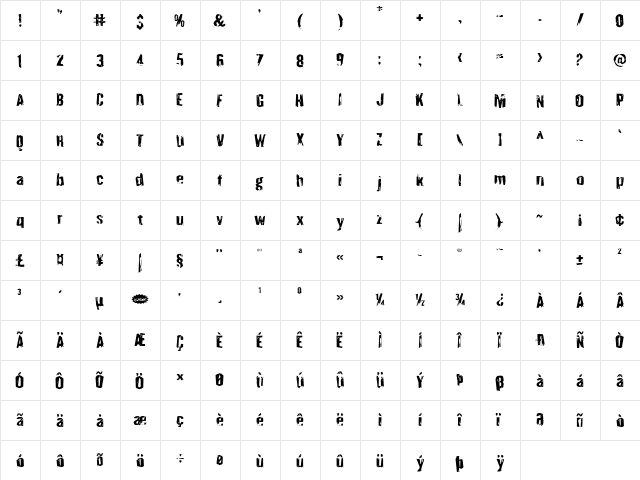
Quarrystone Regular
Design Context for Quarrystone Typeface
Quarrystone is a composed and adaptable typeface that performs quietly and consistently across a wide range of design contexts.
Pro Tip: Use Quarrystone in both headline and body roles to test its range before committing to a single application.